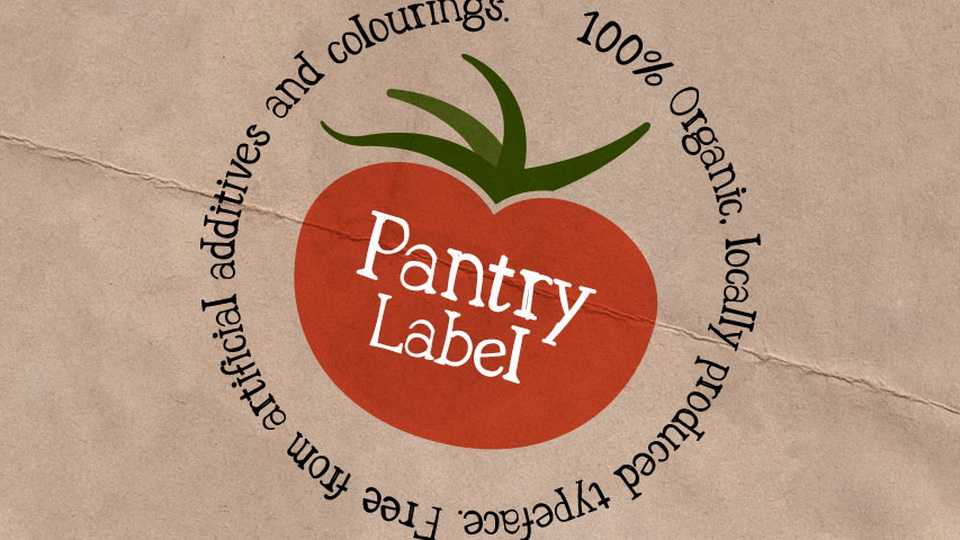
Download Pantry Label font, a natural and organic handwriting typeface. Pantry Label contains ligatures for most repeating letters, so every individual glyph is drawn by hand and unique.